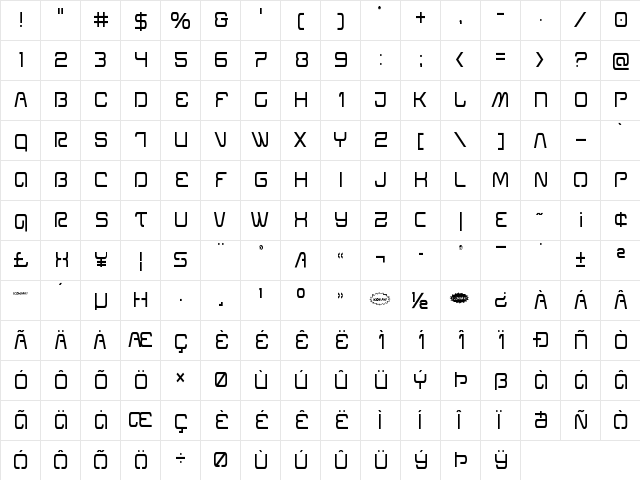
Miracle Mercury Condensed Condensed
Design Context for Miracle Mercury Condensed Typeface
Miracle Mercury Condensed takes a measured approach to typography — its balanced proportions and neutral character make it a reliable workhorse for both digital and print work. Its narrow stance lets it pack a punch even in space-constrained designs.